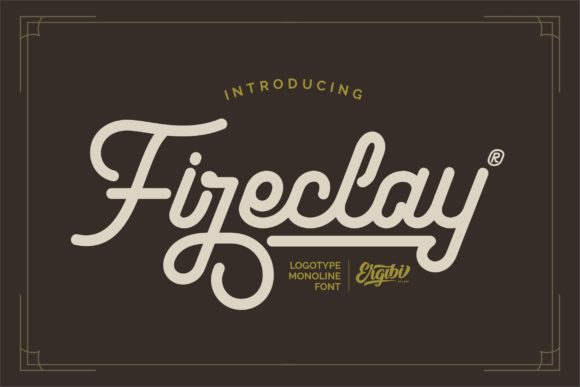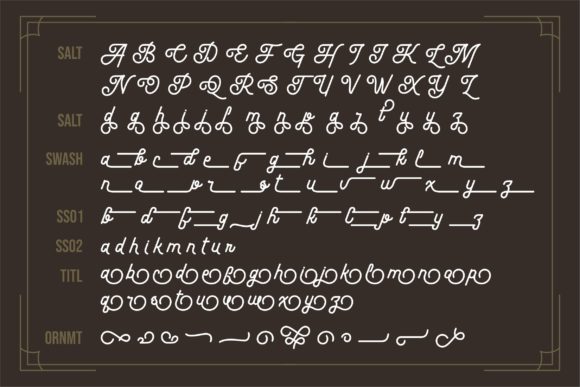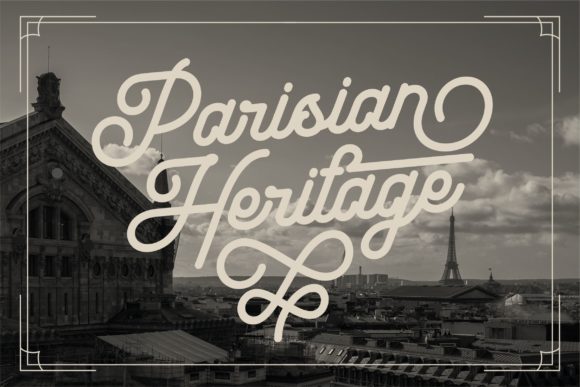
About Fireclay Font
Fireclay is a delicate, elegant and flowing handwritten font. It has beautiful and well balanced characters and as a result, it matches a wide pool of designs. Add it to your most creative ideas and notice how it makes them come alive! This font is PUA encoded which means you can access all of the glyphs and swashes with ease!